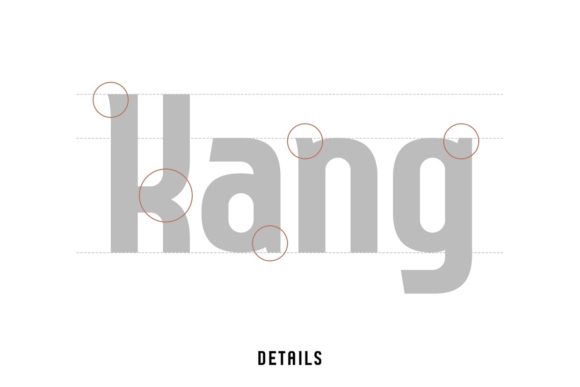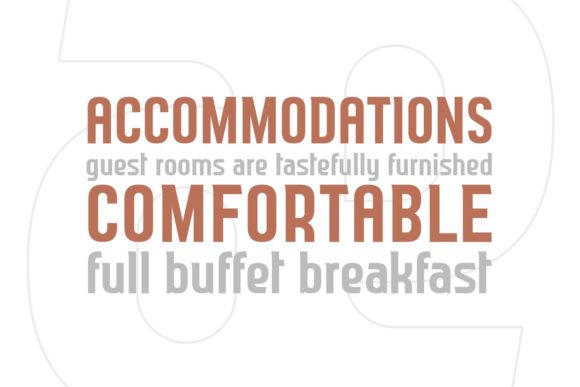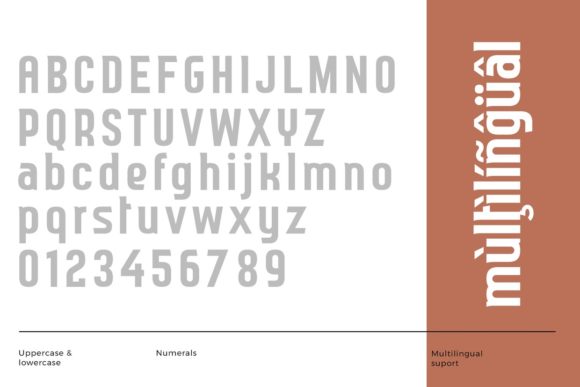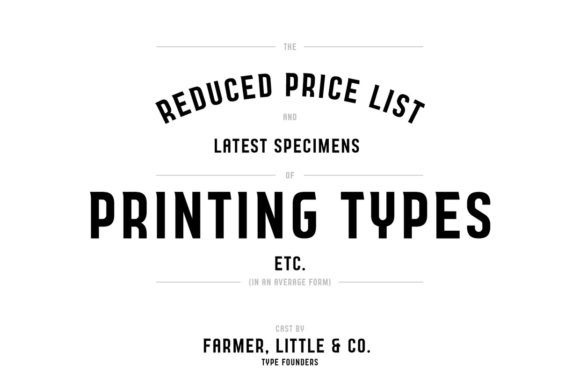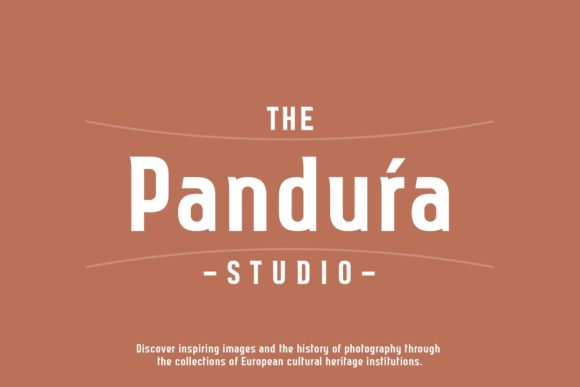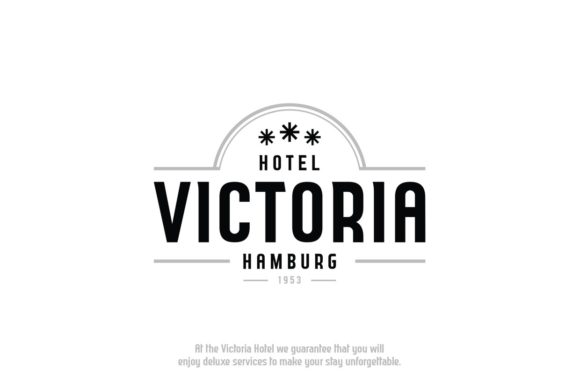
Introduction to Nailhead Font
Presenting NAILHEAD, a modern thick design font with a gentle, narrow serif.
This font features a simple yet elegant appearance, covering a wide range of projects From poster design, banners to wedding invitations.
Key Features of Nailhead Font